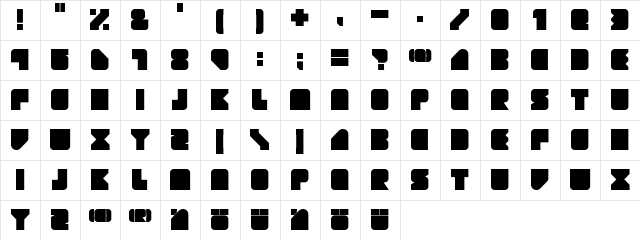
GEIST RND Regular
Foundry: Frederik Frede
Designer: Frederik Frede
Design Context for GEIST RND
GEIST RND is a composed and adaptable typeface that performs quietly and consistently across a wide range of design contexts.